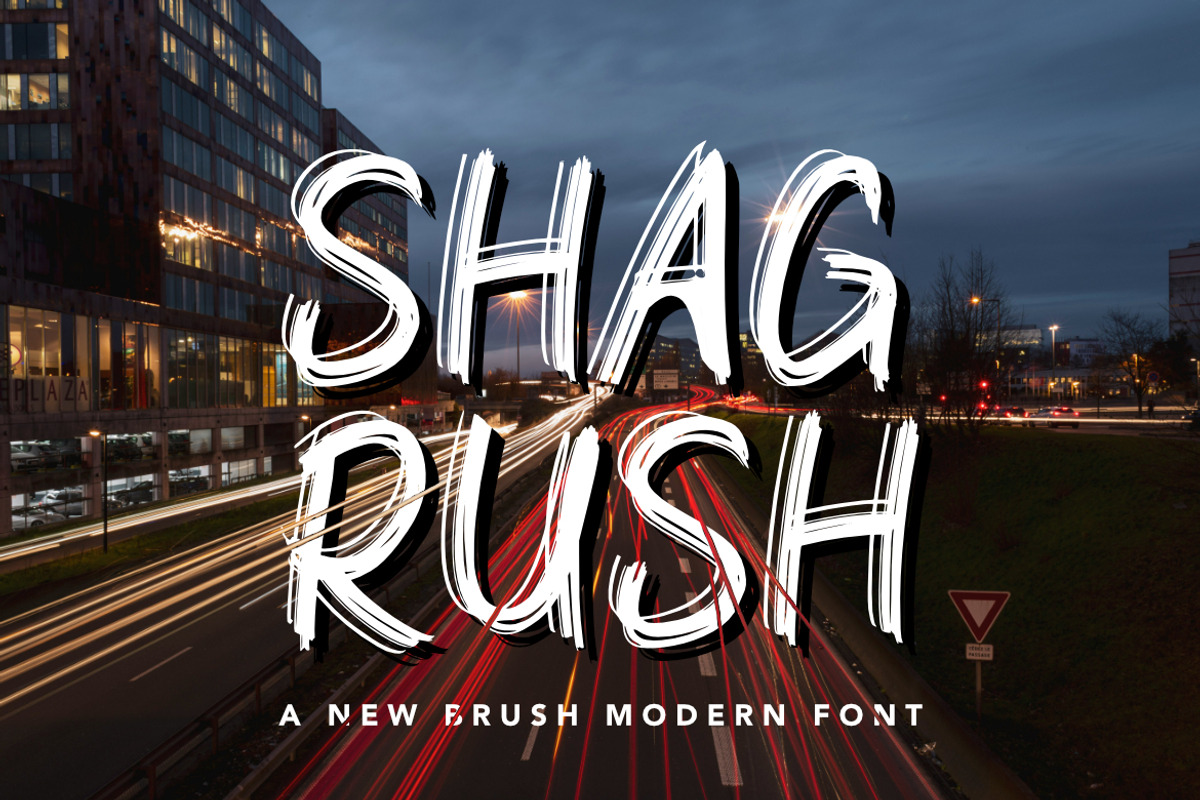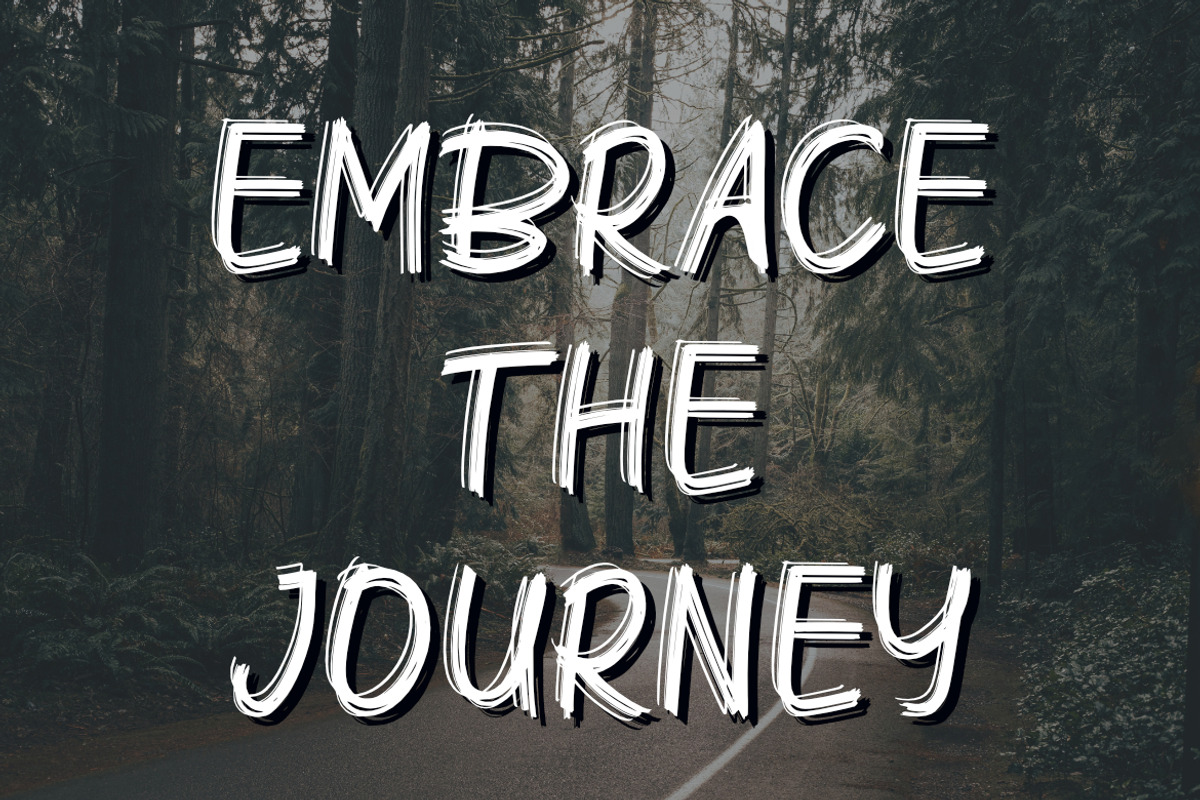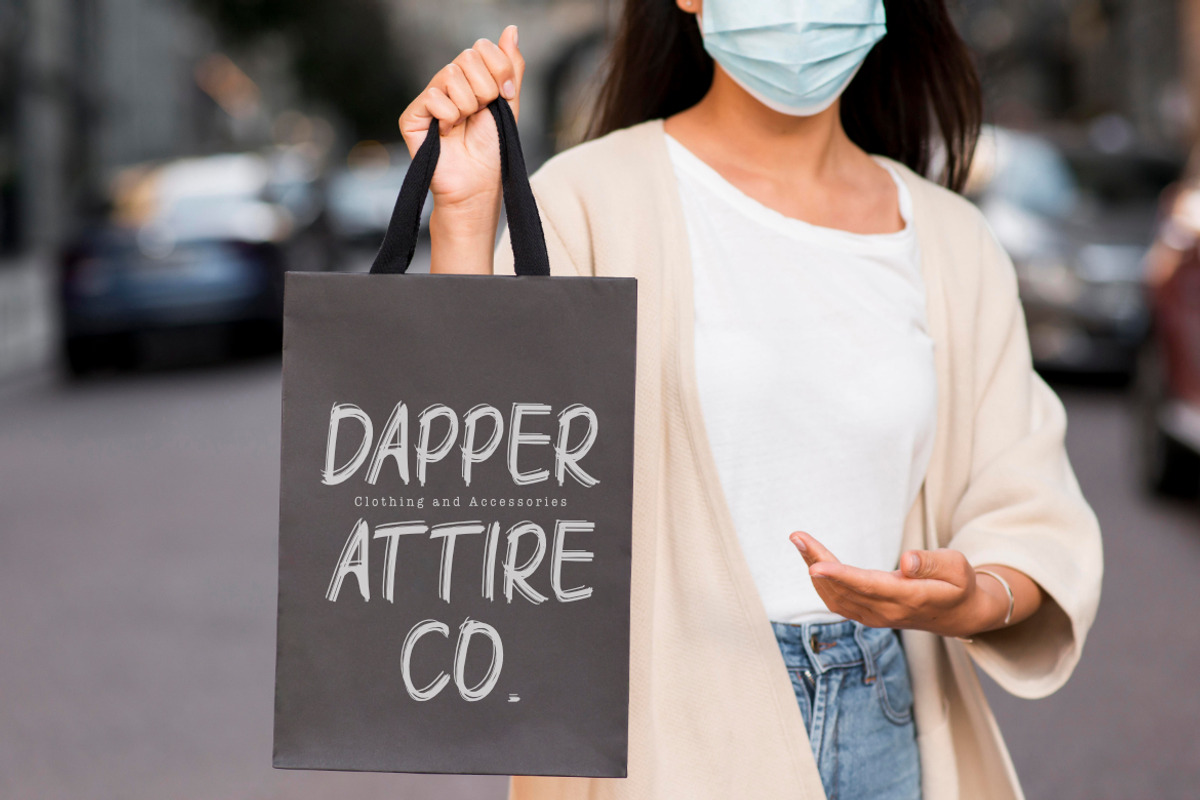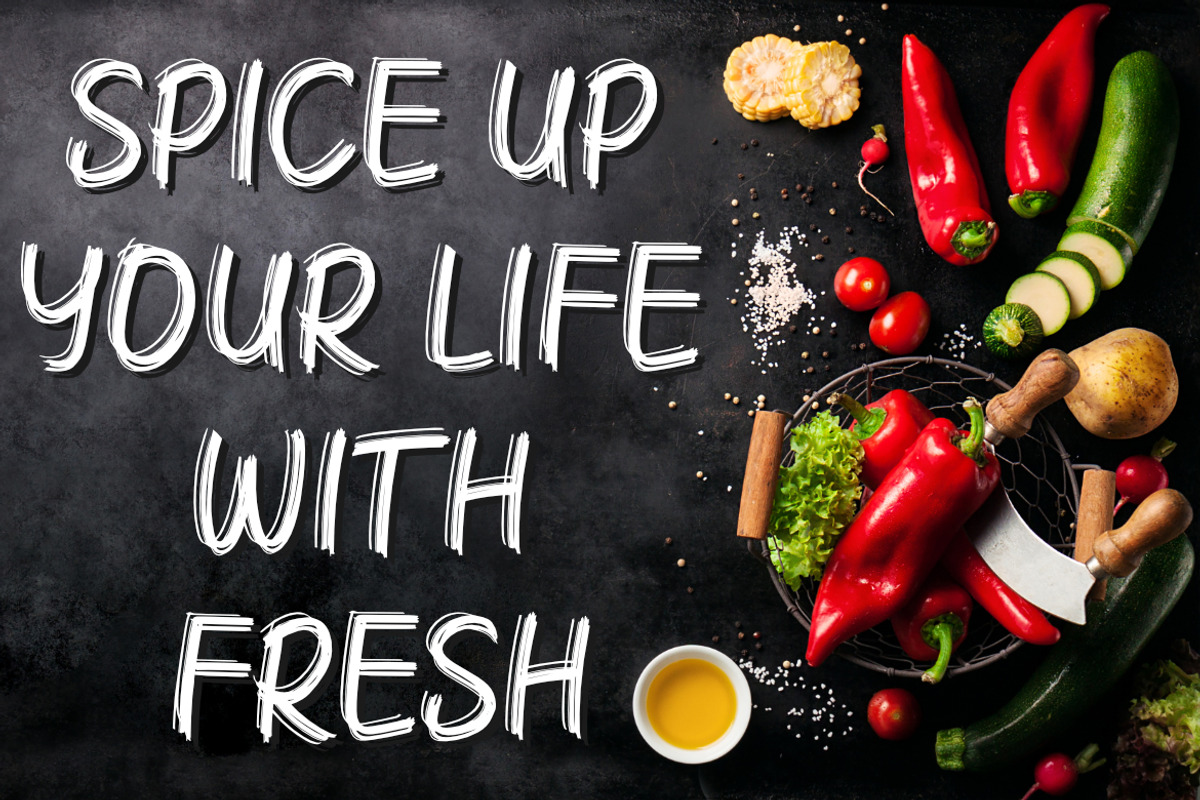
Shagrush Brush Font
Shagrush New Brush Font, This font is made with a high premium quality level which you can use as flyers, quotes, posters, banners, packaging, merchandise, logotypes and much more.